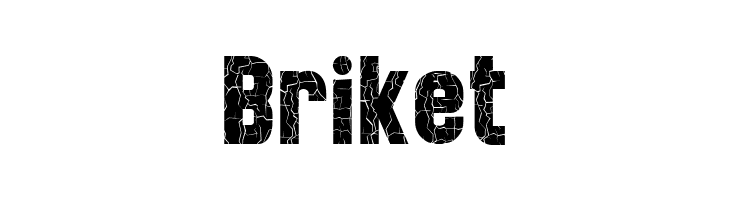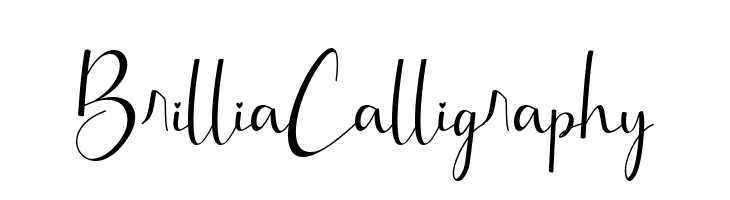
A bold, cracked textured font with a rugged and distressed appearance.
A whimsical script font with heart motifs and elegant calligraphic elements.
A lively, cursive script font with fluid, interconnected strokes.
A sophisticated script font with elegant, flowing characters and calligraphic style.
A bold, shadowed font with a modern, geometric style.
A dynamic, expressive handwritten font with fluid strokes and playful curves.
A modern calligraphy font with elegant, flowing cursive letters and dynamic stroke variations.
A modern calligraphy font with elegant, flowing cursive letters.
A playful, cursive font with a dynamic, handwritten style.